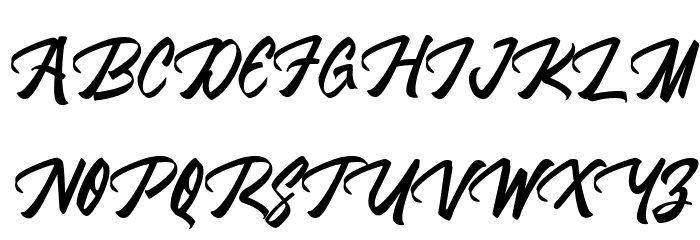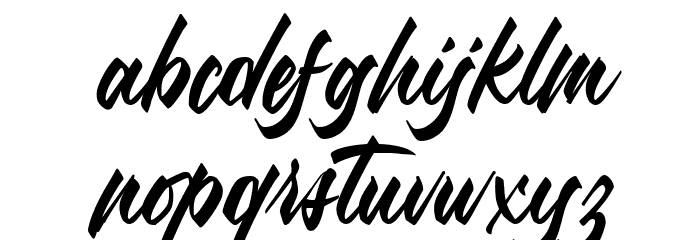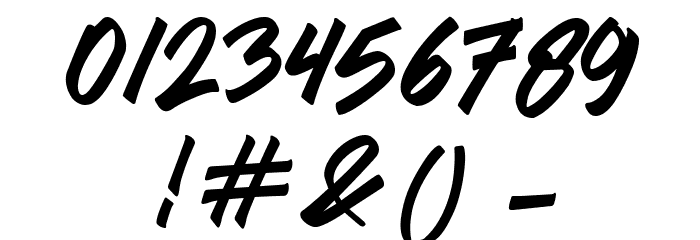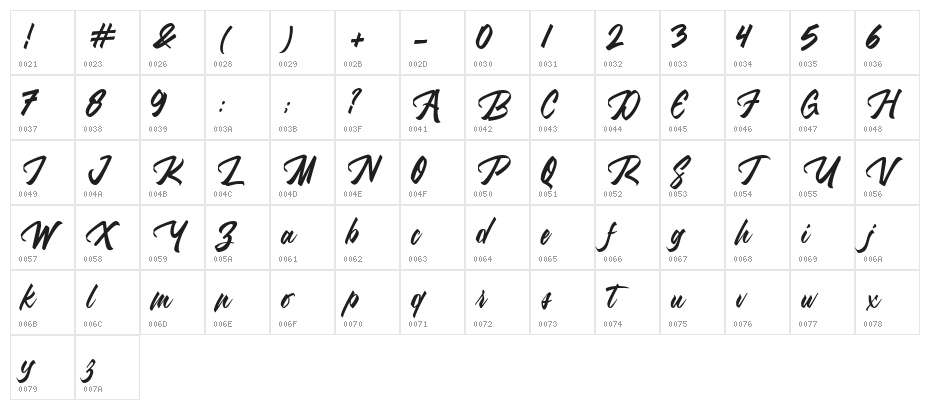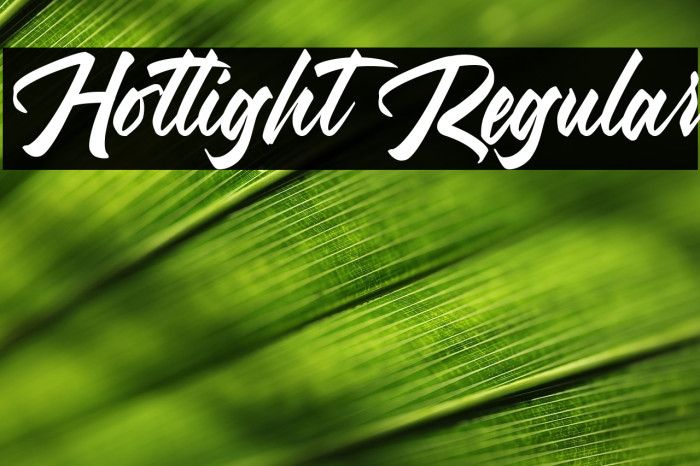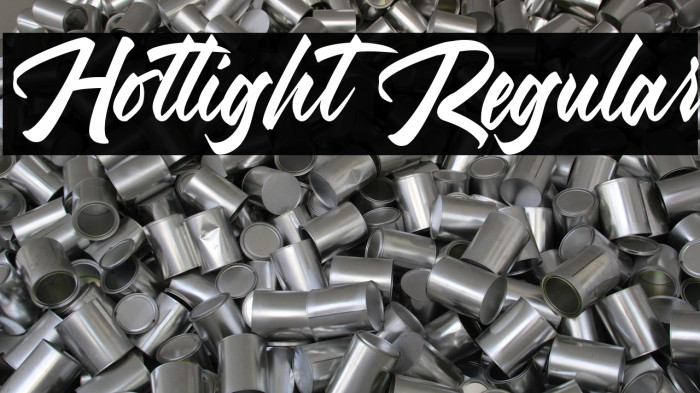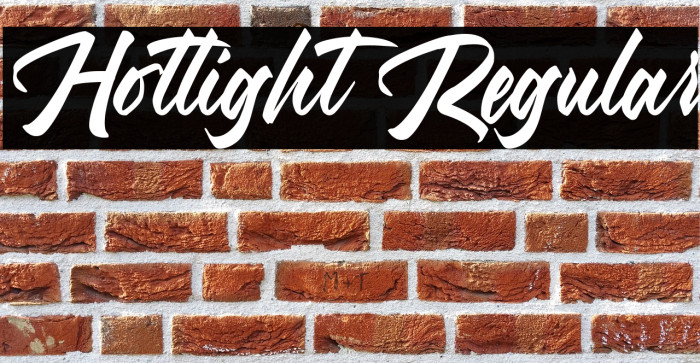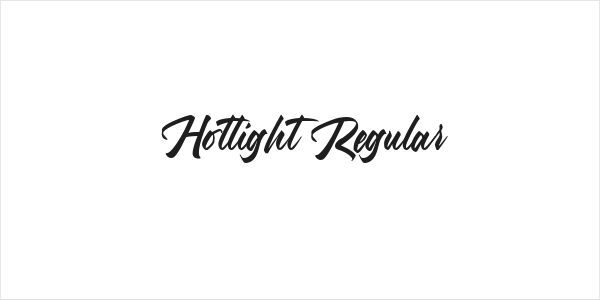
Hotlight Regular Font
This font exudes a dynamic and energetic style, characterized by its bold, flowing script. The letters are connected in a fluid manner, creating a sense of movement and rhythm. The uppercase letters maintain a consistent height, while the lowercase letters exhibit a slight slant, enhancing the cursive feel. The numerals are bold and maintain the same energetic flow as the letters. Special characters are integrated seamlessly, maintaining the overall aesthetic. The strokes are thick, providing a strong visual impact, while the spacing between characters is tight, emphasizing the connected nature of the script.
A bold, flowing script font with dynamic, connected letters.
- Font: Hotlight Regular
- Proposed Projects: Ideal for branding, logo design, invitations, and any project requiring a lively, handwritten touch.
- Category: Script
- Character Spacing: Tight
- Use Case: Logos, Headlines, Invitations